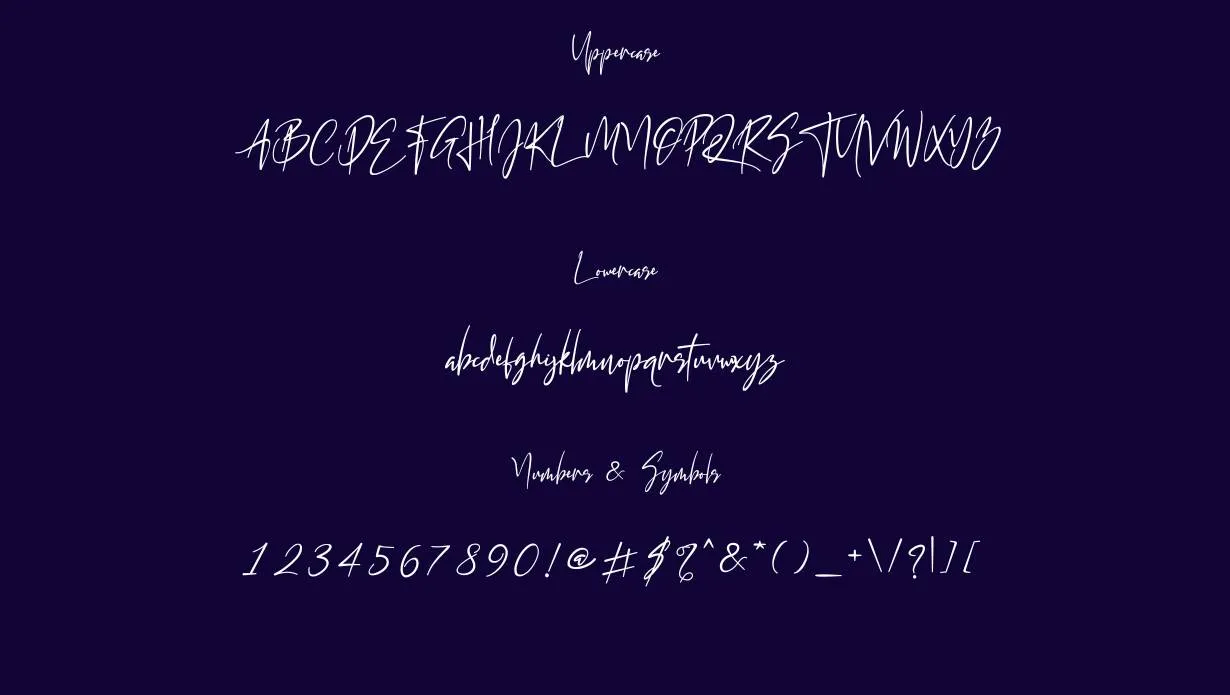
The font California Street Script captures the essence of California, representing its free-spirited and carefree nature.
Its flowing and casual script style is commonly used in beach-themed branding, surf-related projects, and designs that aim to evoke the relaxed and sunny California lifestyle.
California Street Script Font Family
| Designer | Thomas Aradea |